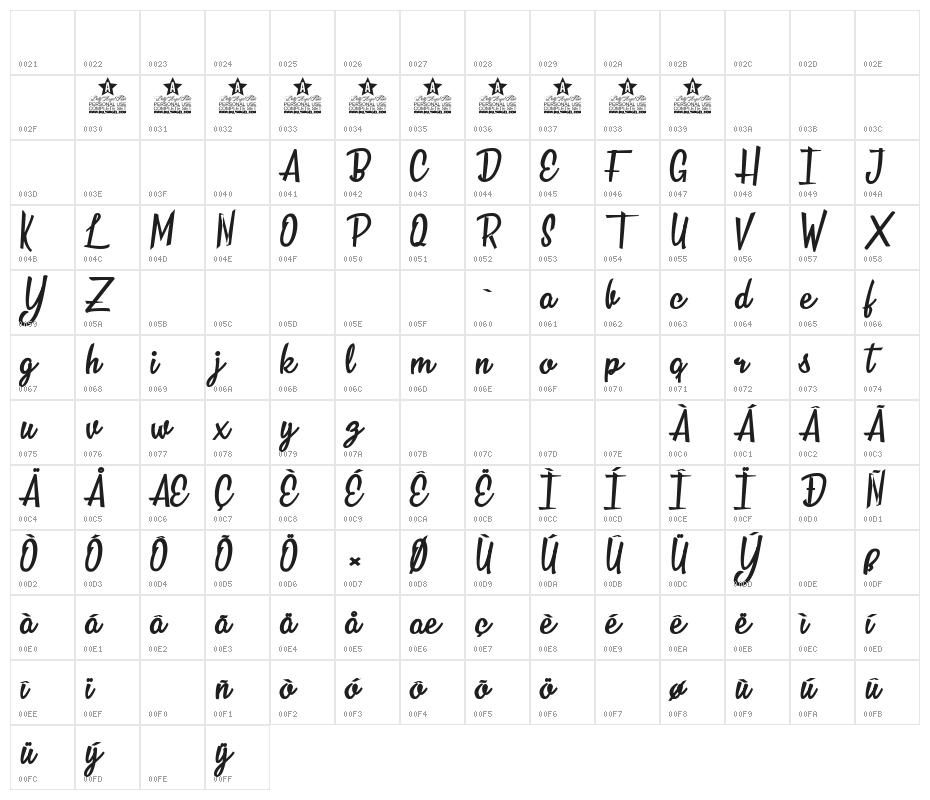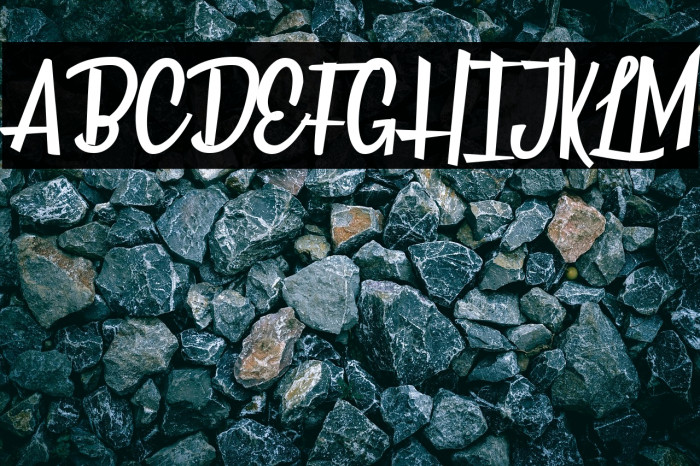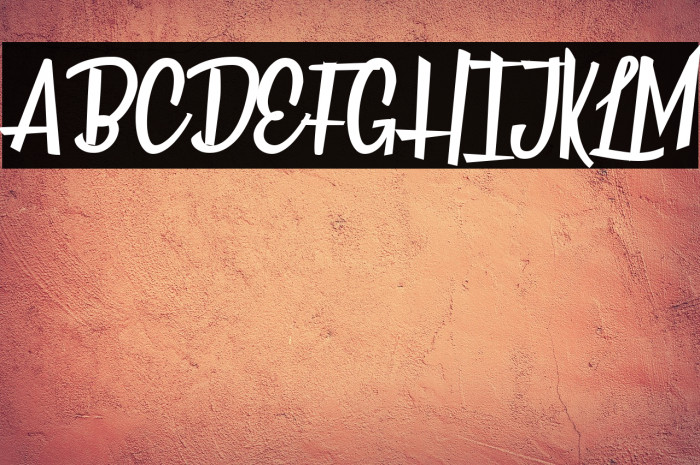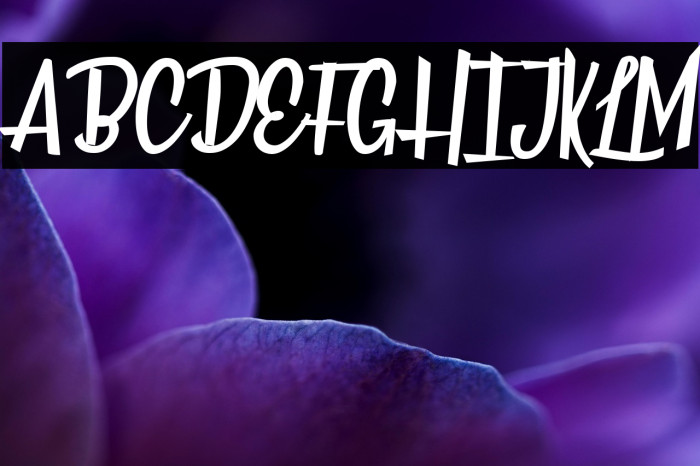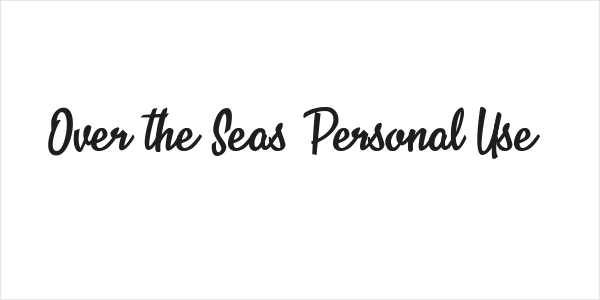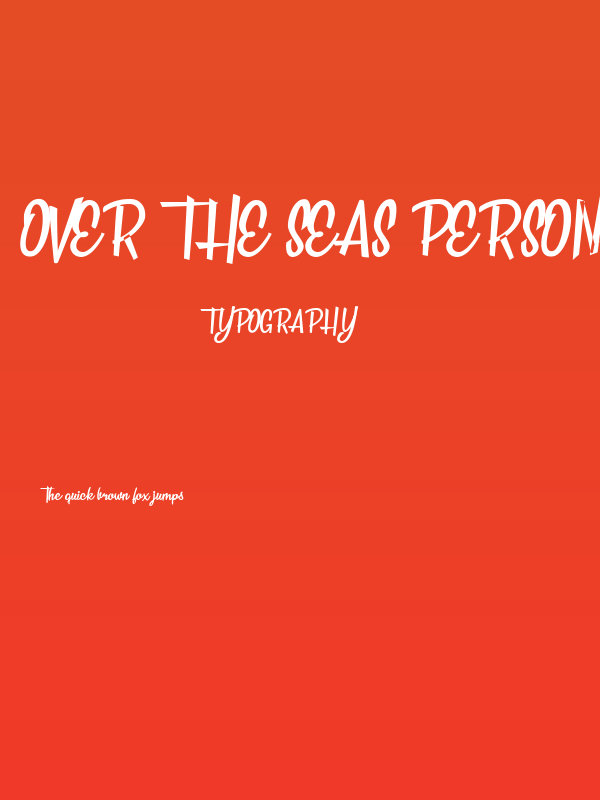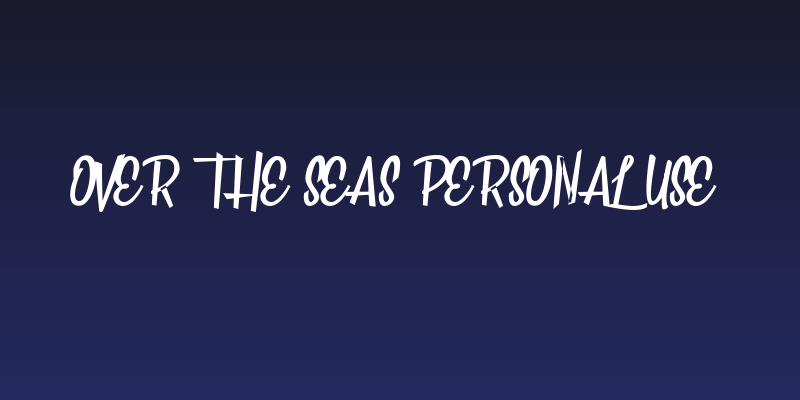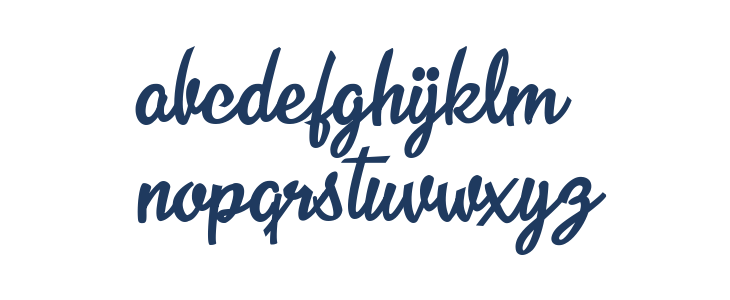
Over the Seas Personal Use Font
Over the Seas Personal Use Description
This font features a dynamic and expressive style, characterized by its bold and flowing script. The uppercase letters exhibit a tall, narrow form with sharp angles and a slight slant, giving them a modern and edgy appearance. The lowercase letters are more fluid and connected, resembling a handwritten script with smooth curves and elegant loops. The overall design is cohesive, with a consistent stroke width that adds to its boldness. This font is ideal for projects that require a personal touch or a sense of movement and energy.
| Proposed Projects | Ideal for logos, branding, invitations, and creative headlines. |